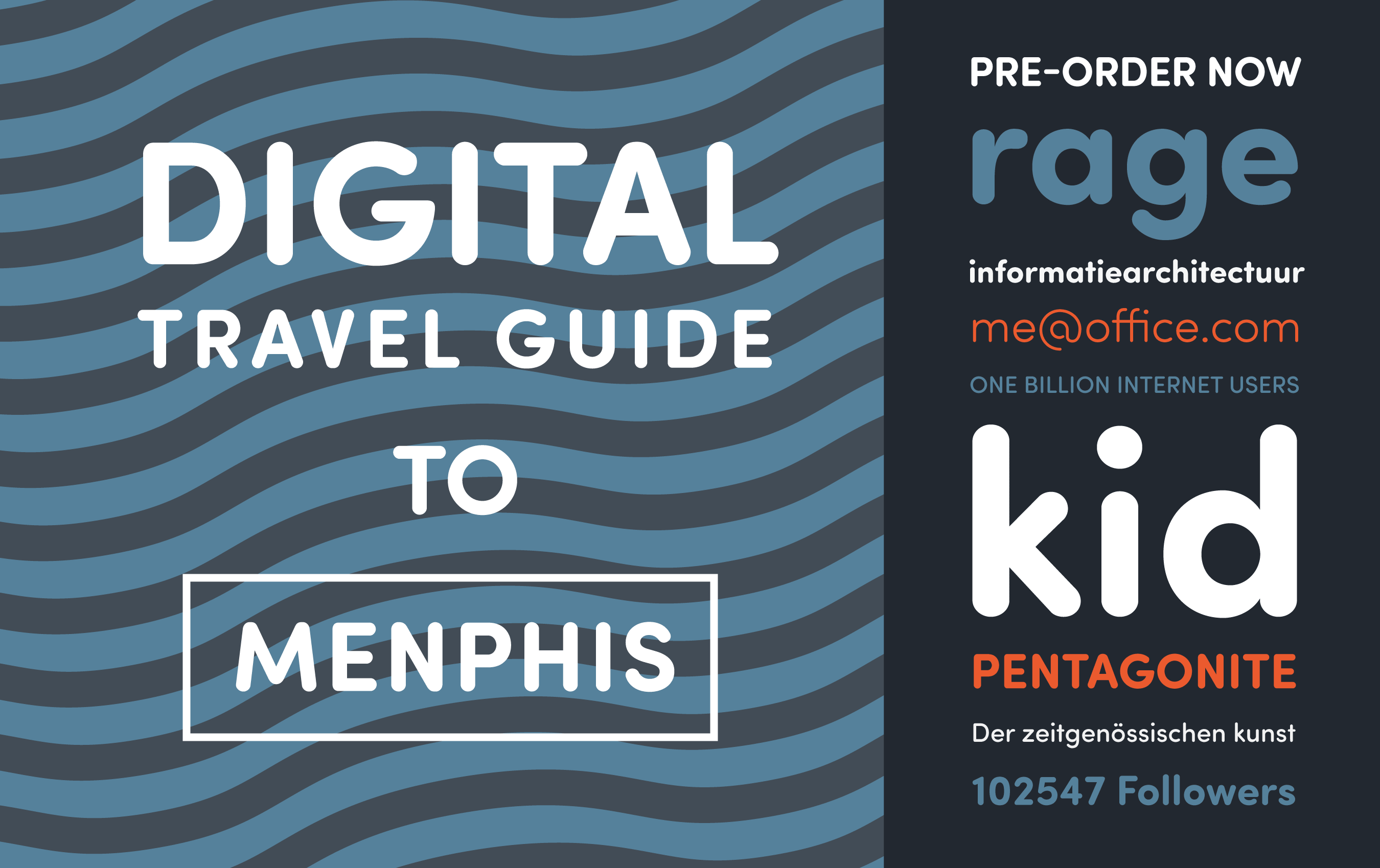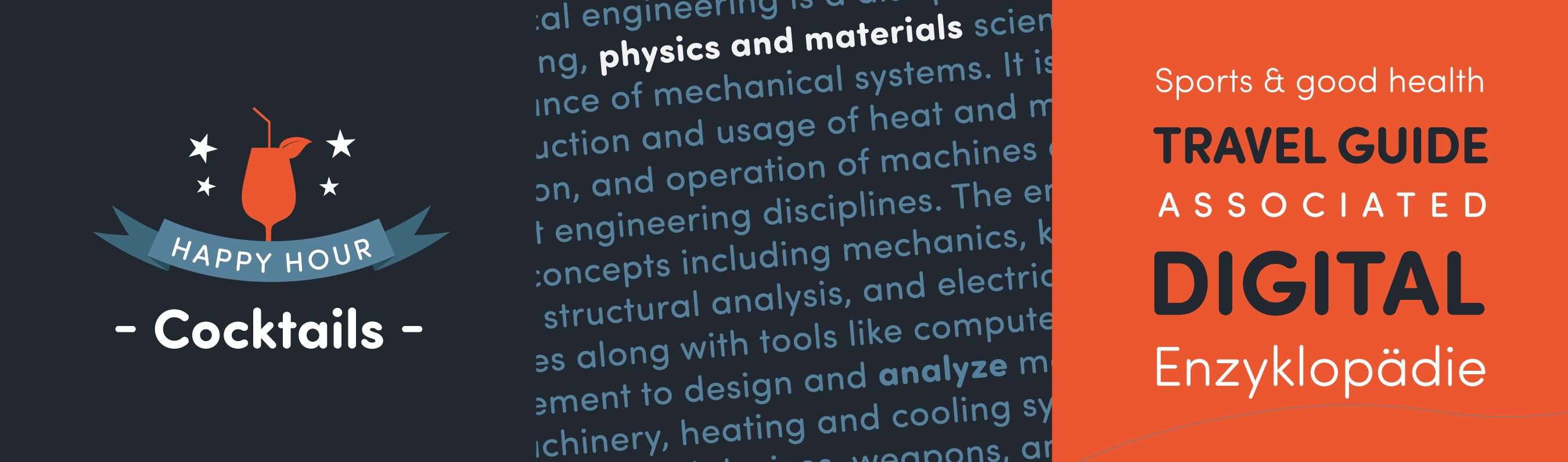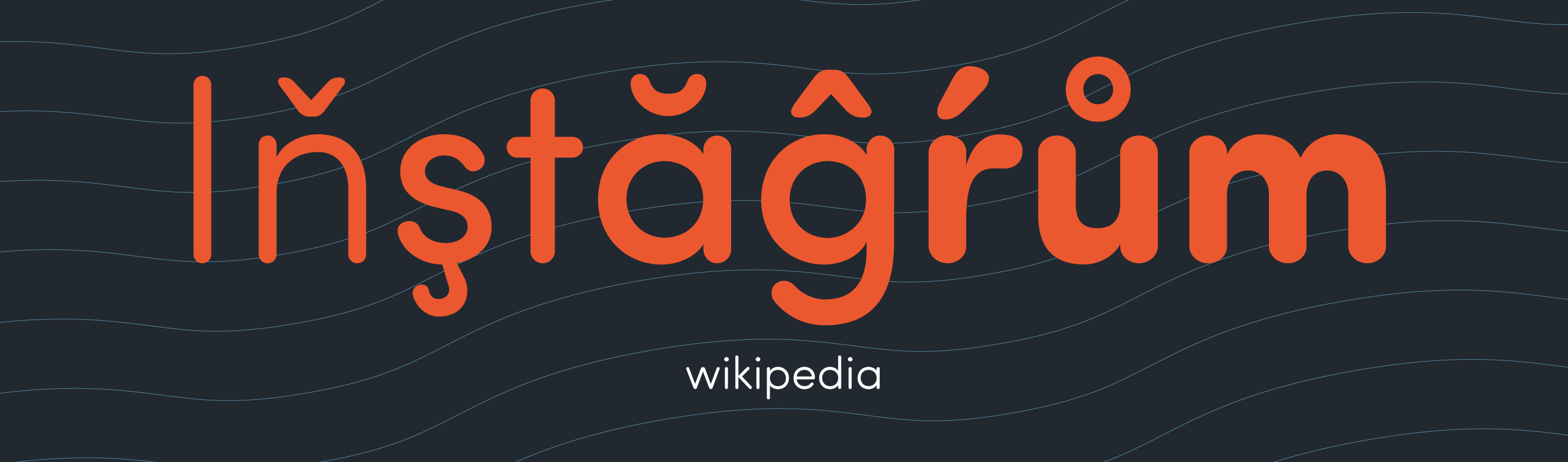
Sofia Soft
The softer variation of Sofia Pro with lot of personality
Sofia Soft is the rounded counterpart of Sofia Pro, offering 8 playful styles with similar typographic characteristics. With a unique appearance crafted through manual redesign rather than automatic filters, Sofia Soft is distinct and contains 4 styles with corresponding italics. Suitable for diverse projects like titles, editorials, brand building, mobile apps, and more, it also features OpenType capabilities for added personality. Designed for complex editorial content, Sofia Soft includes a powerful “Pro Kerning” system, optimizing over 2500 glyph pairs in multiple languages. As part of a comprehensive type system, it offers over 40 styles, ensuring vibrant and consistent graphic or web creations. Explore the PDF specimen for a detailed overview of its features.